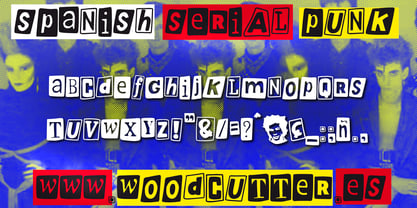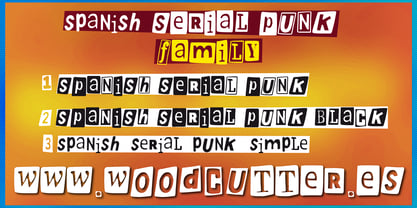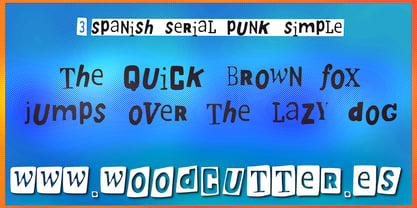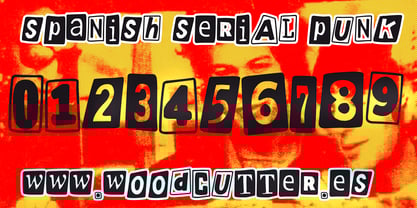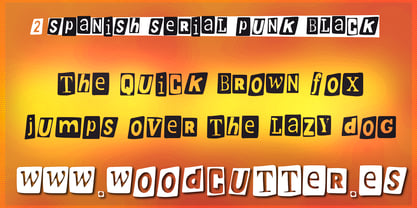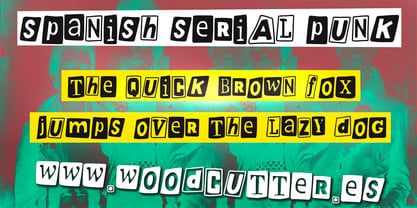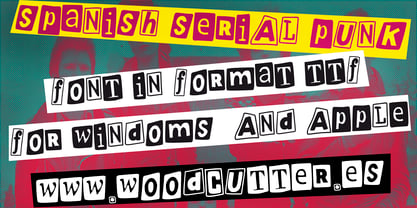
Spanish Serial Punk
by Woodcutter
The Spanish Serial Punk Font Family was designed by Jordi Manero and published by Woodcutter. Spanish Serial Punk contains 3 styles and family package options.
The "Spanish Serial Punk" typeface family is a tribute to the raw and rebellious aesthetic of punk culture, inspired by the iconic flyers and fanzines created with cut-out letters from newspapers and magazines. Its characters are distorted, irregular, and each has a unique design, adding a visual chaos that embodies the DIY spirit of the movement.
This family includes three versions:
"Spanish Serial Punk", the original version, where each letter is enclosed in a rectangle with different tones and textures, creating an anarchic and handmade look.
"Spanish Serial Punk Black", where all rectangles are completely black, generating a strong and aggressive contrast, perfect for impactful compositions.
"Spanish Serial Punk Simple", the cleanest and most direct version, without rectangles, highlighting only the distortion and raw energy of each letter.
Ideal for posters, album covers, and any design with an irreverent attitude, this typeface captures the essence of punk in its purest and most subversive form.